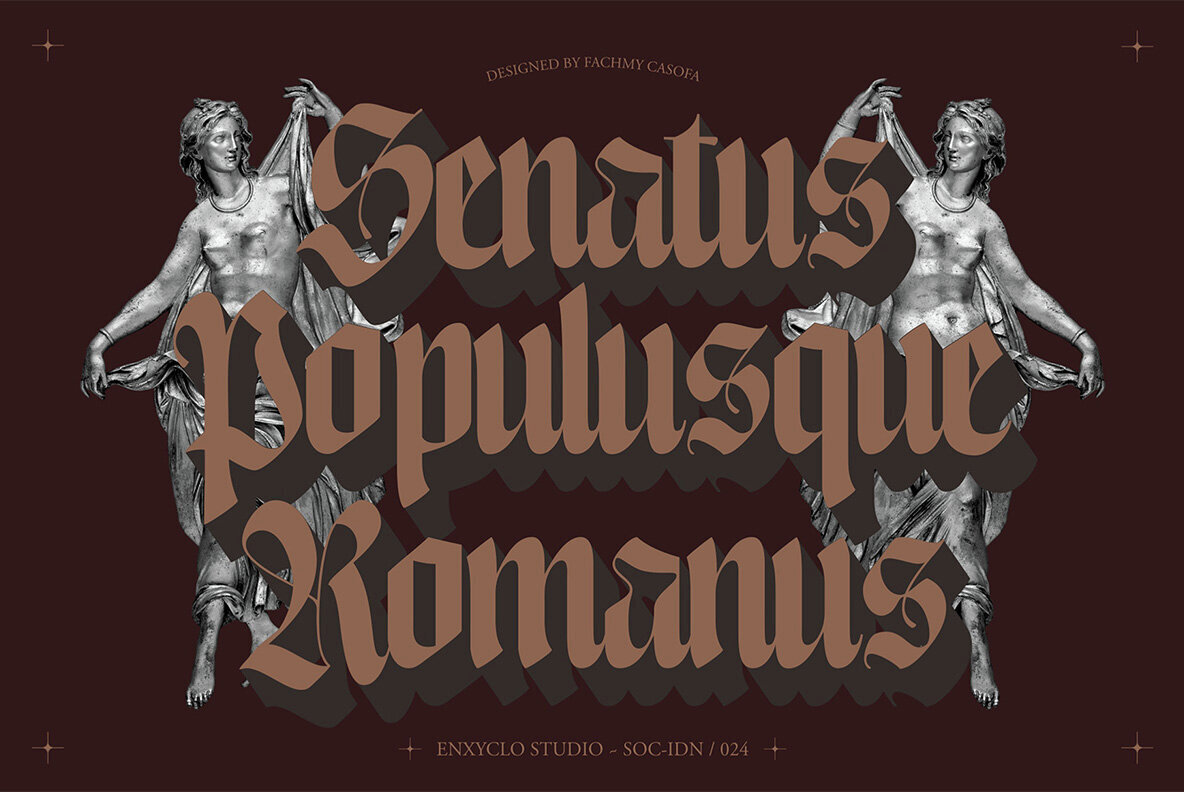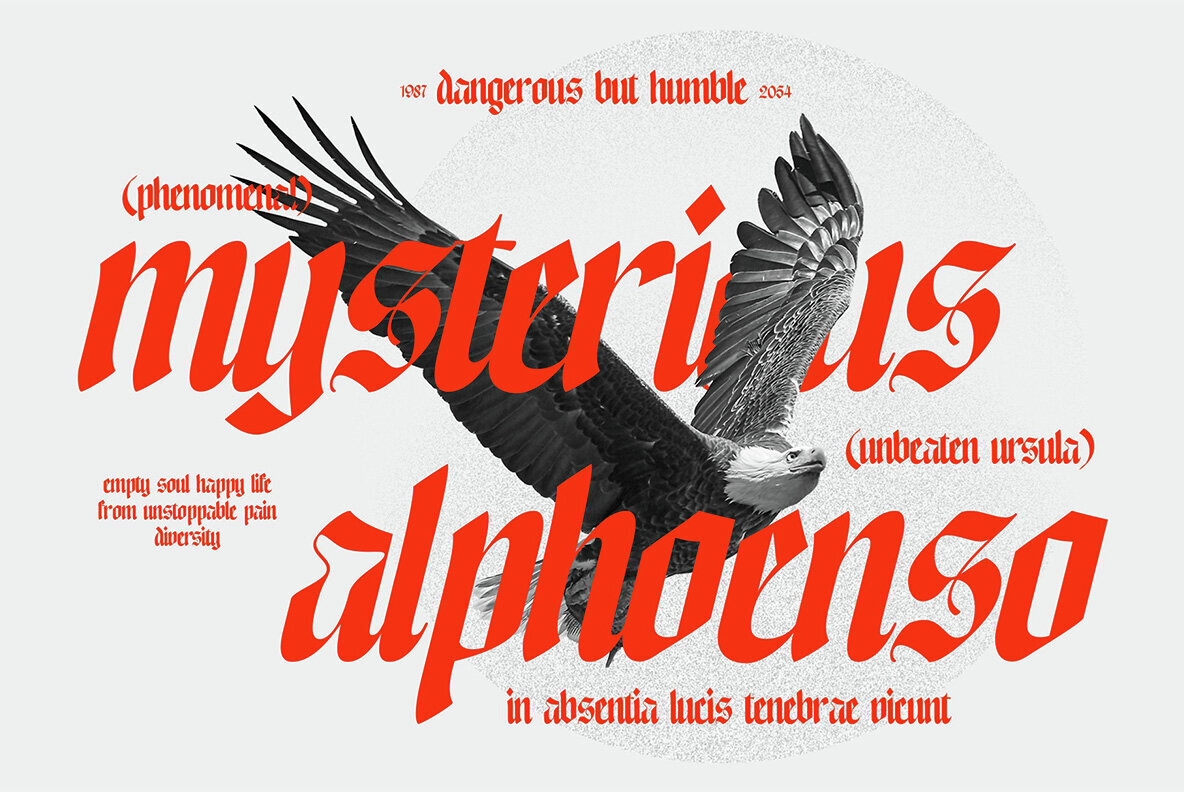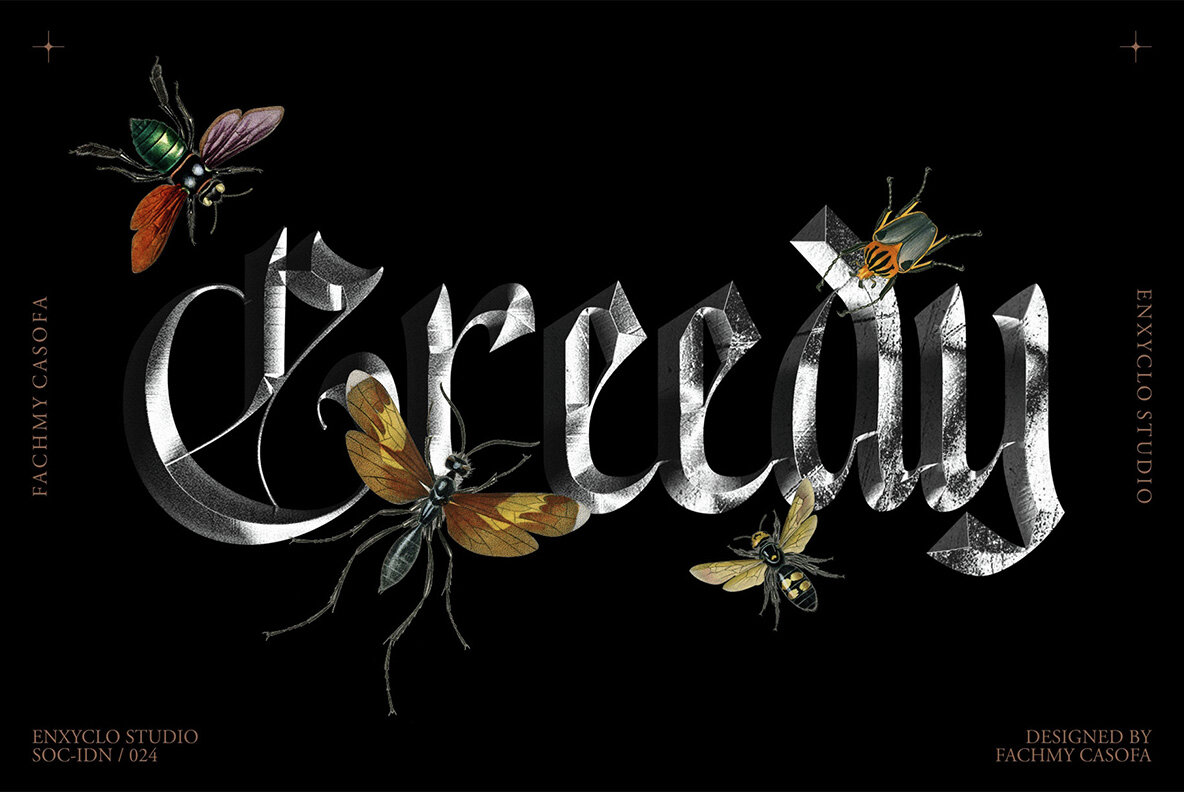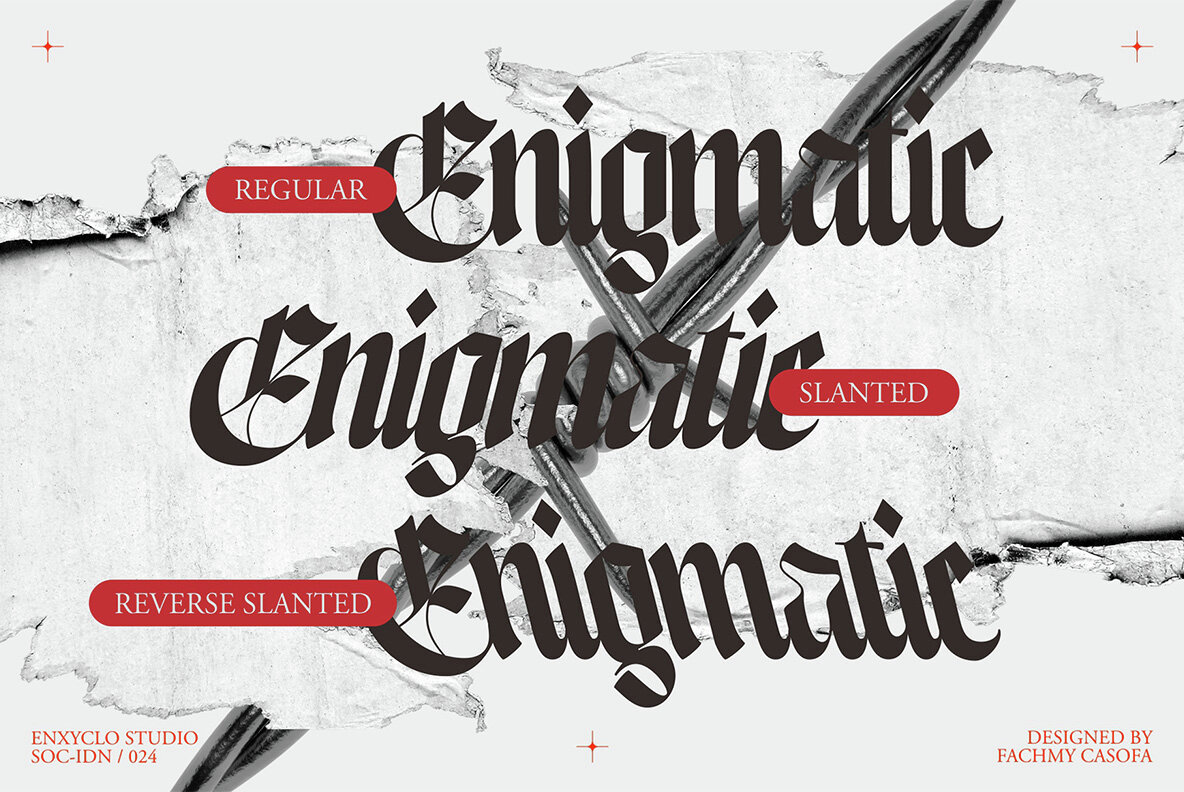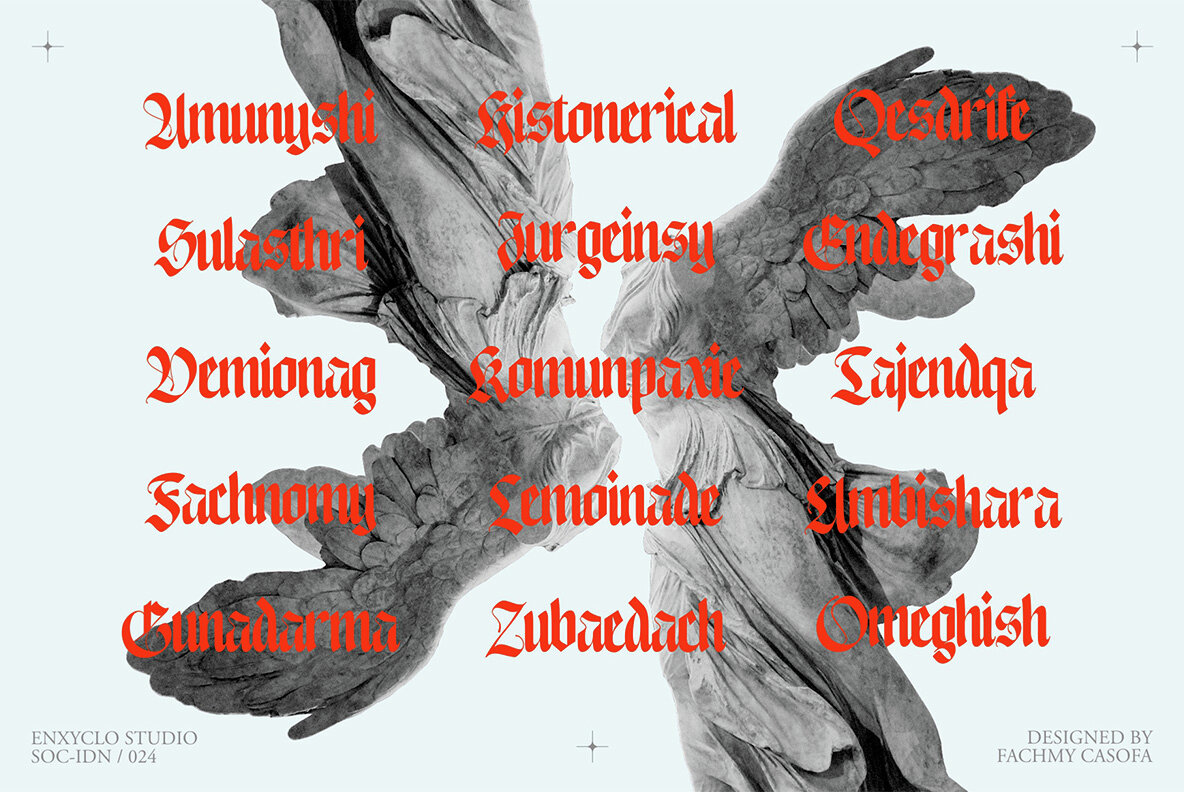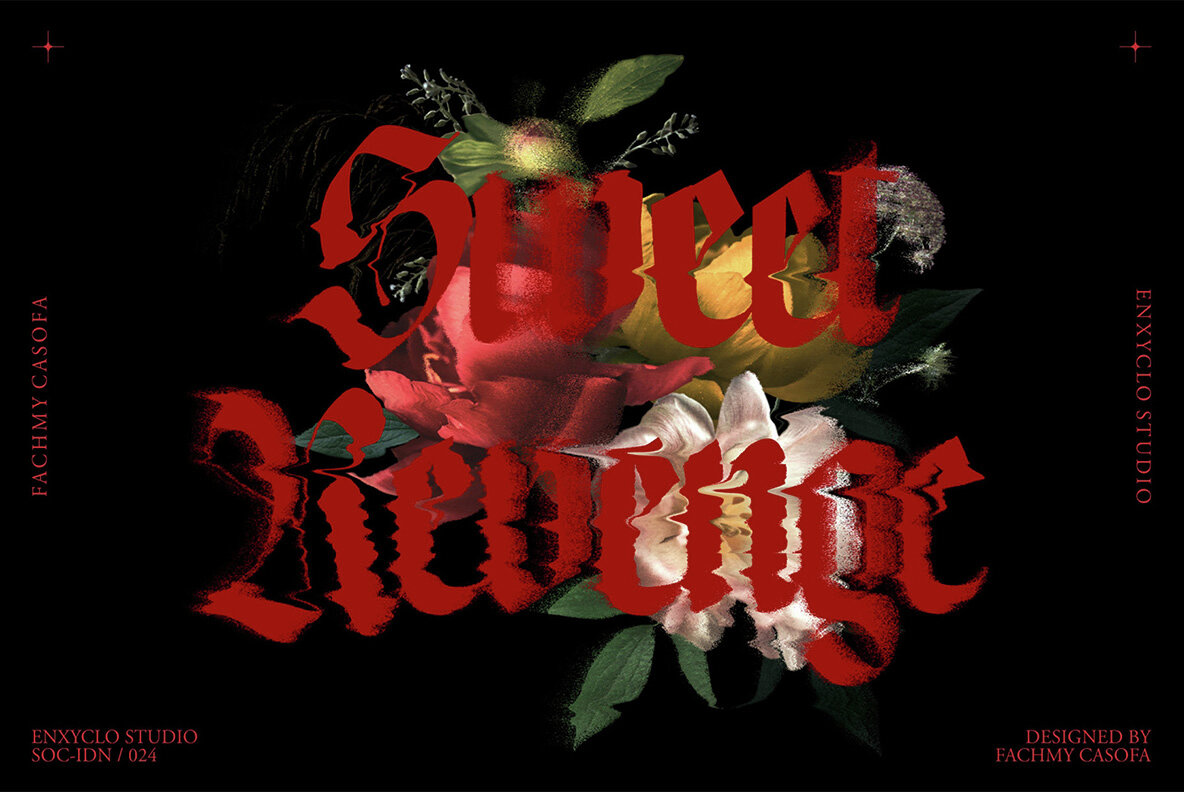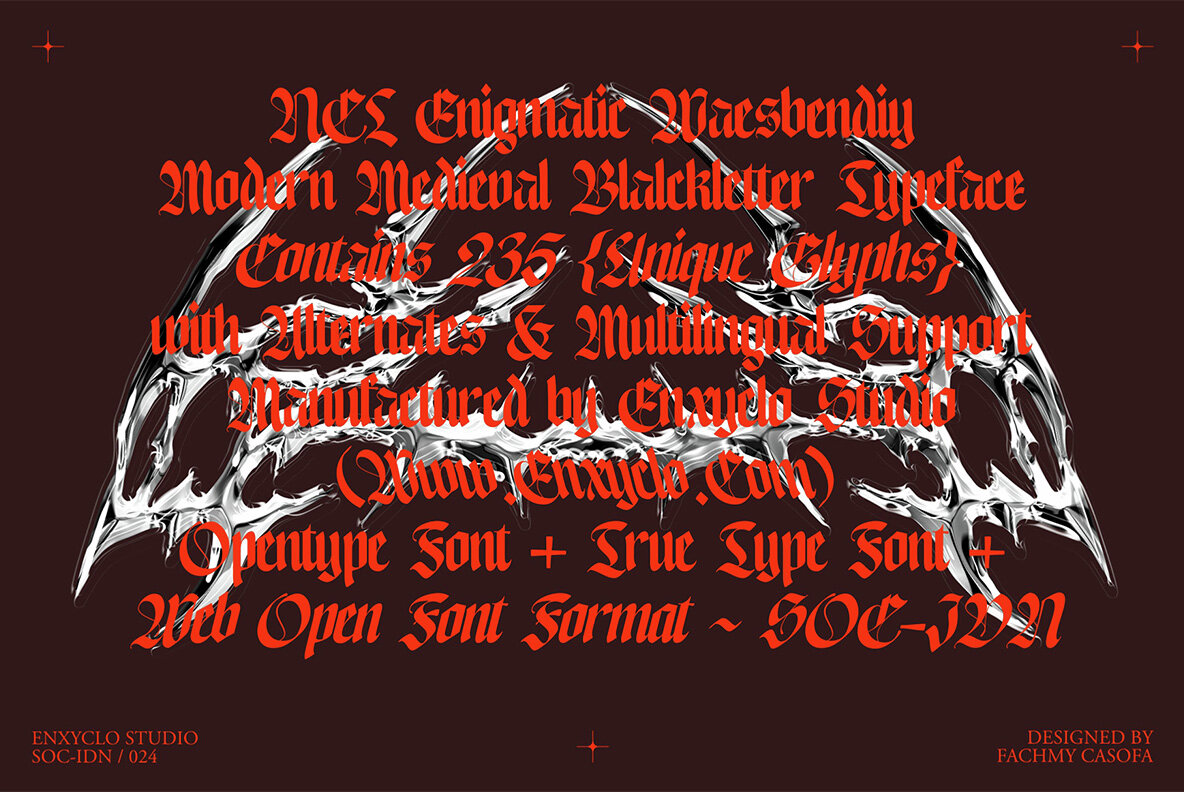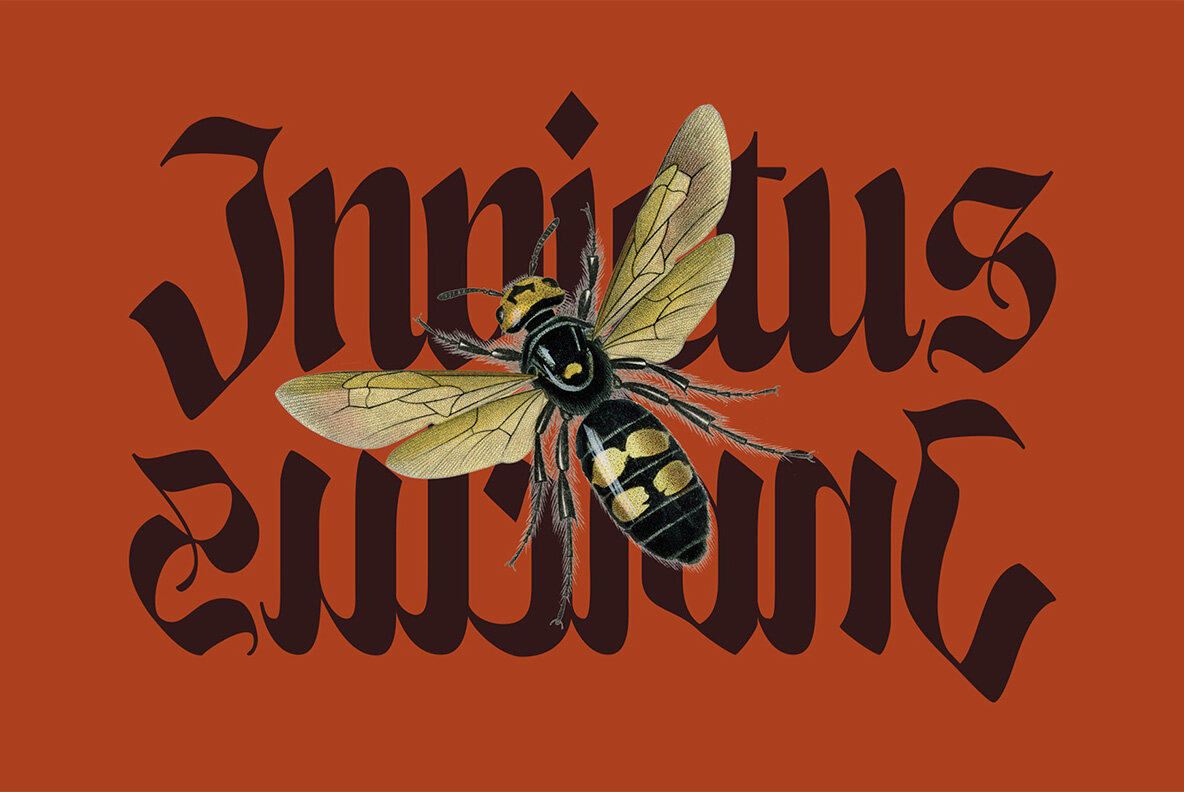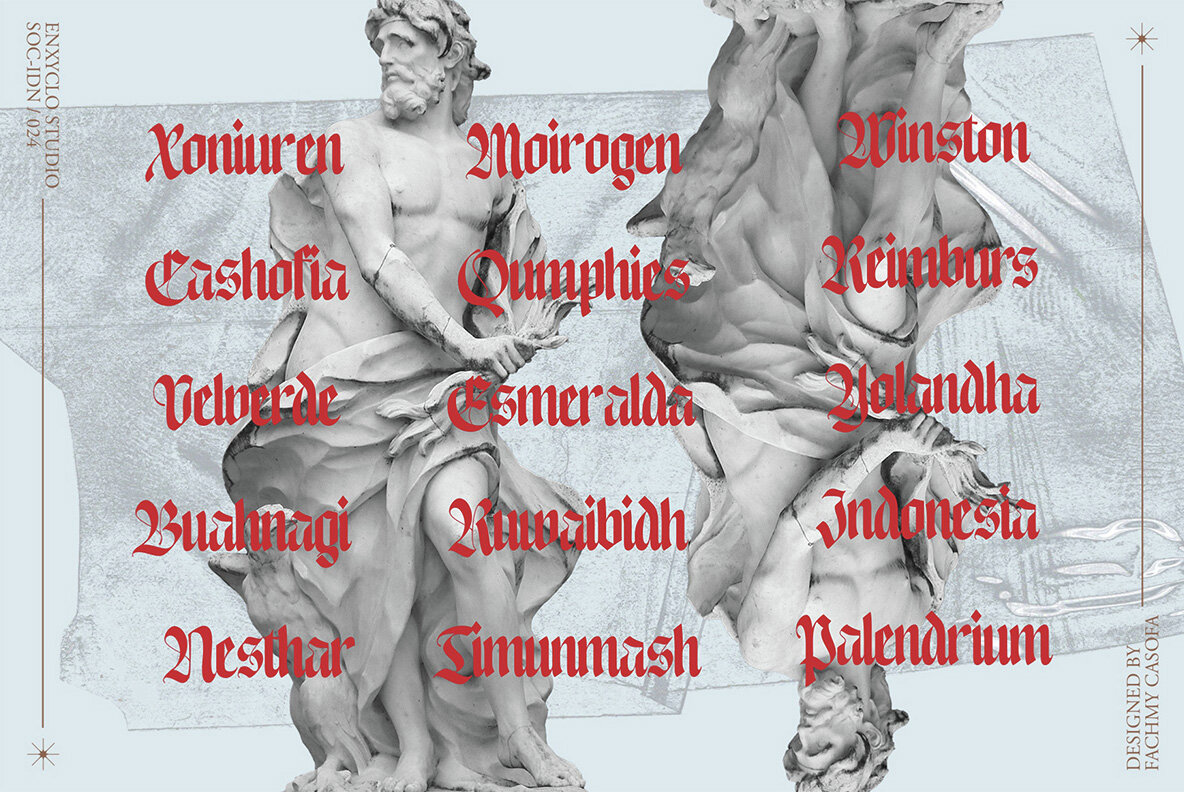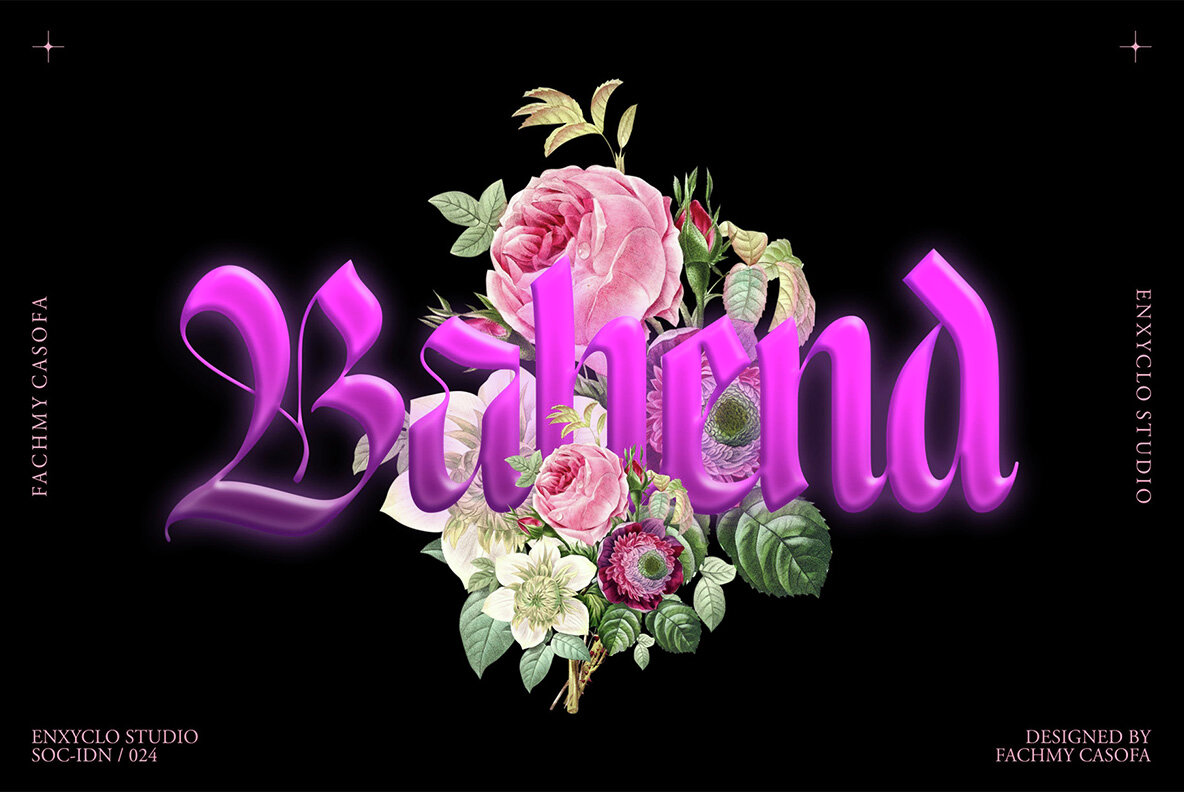
NCL Enigmatic Waesbendiy Font
This modern medieval blackletter font is inspired by the Middle Ages and updated with a contemporary twist, ideal for projects ranging from medieval-themed visuals to modern-classic designs. It infuses a fresh and distinct aesthetic, ensuring that your work—be it a website, poster, logo, or other creative projects—captures attention and adds a unique sense of sophistication. The font’s diverse styles and intricate design elements create a truly multidimensional experience for the viewer.
With 235 glyphs per style and a total of 705 glyphs across three unique styles—Regular, Slanted, and Reverse Slanted—this font offers comprehensive coverage for both uppercase and lowercase lettering, numbers, punctuation, and symbols. It includes alternate characters and provides extensive multilingual support, making it a flexible and indispensable tool for designers seeking to craft visually engaging and innovative work.